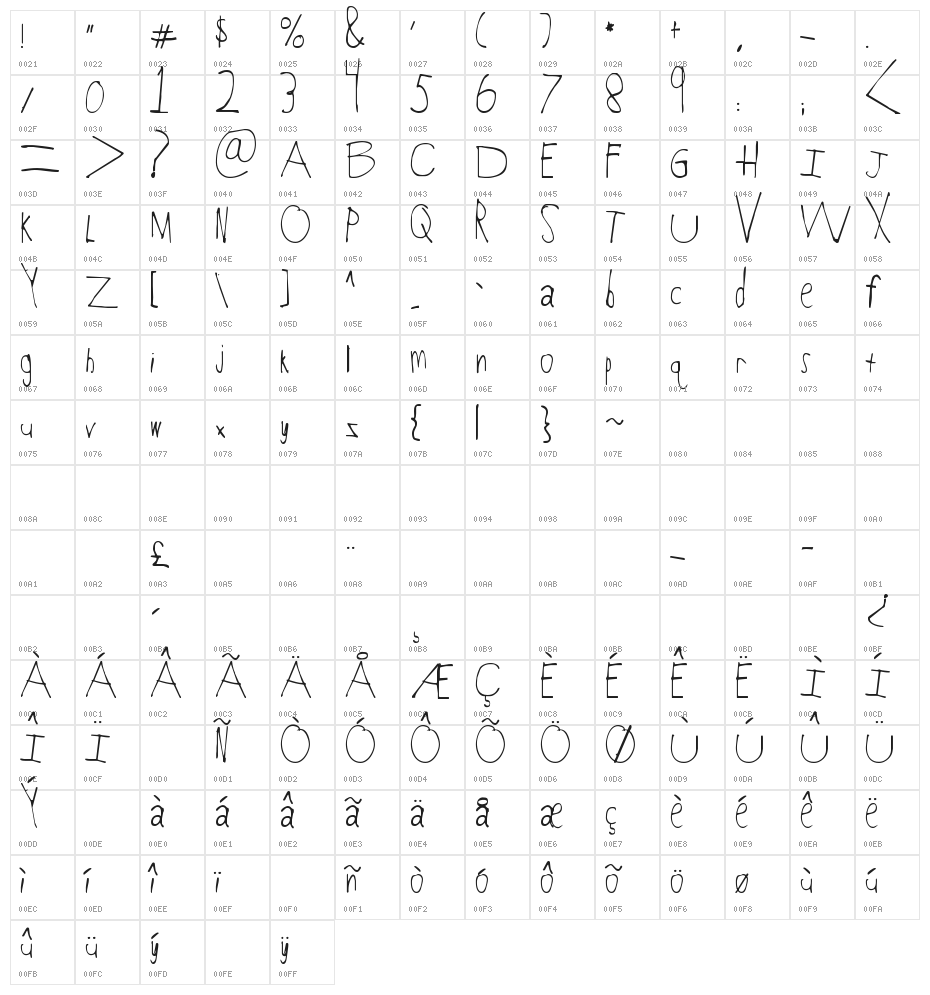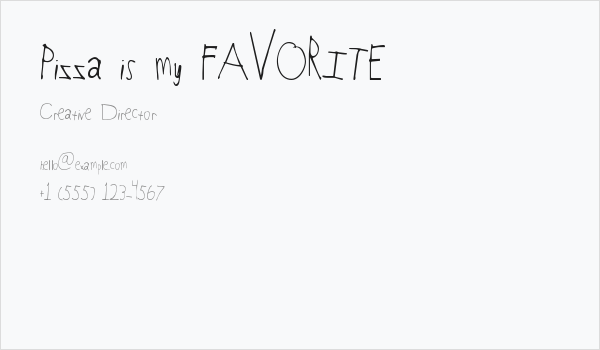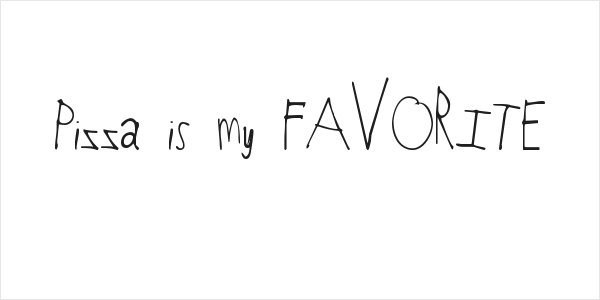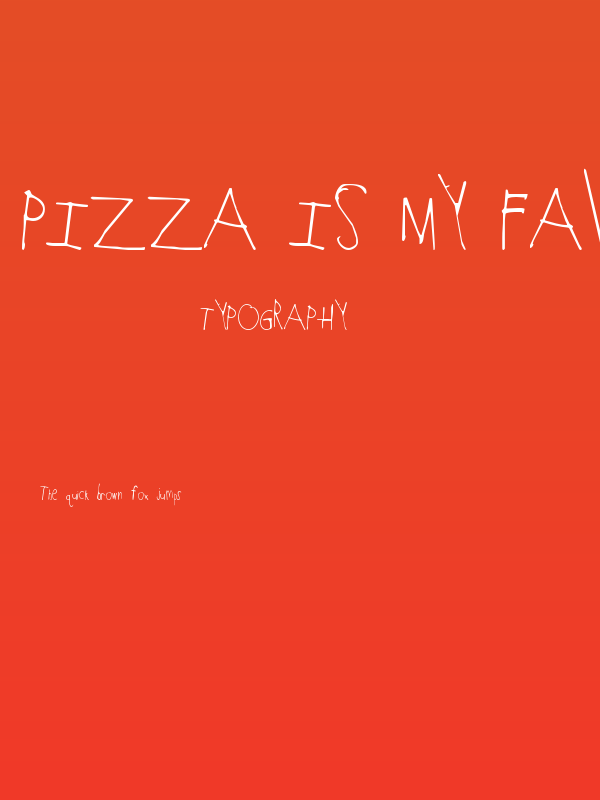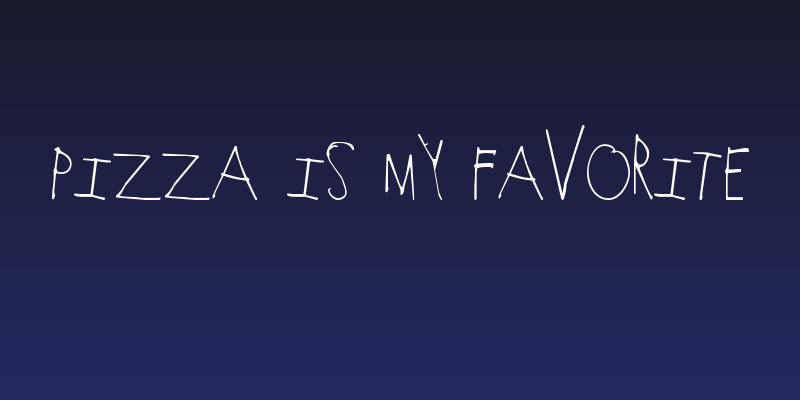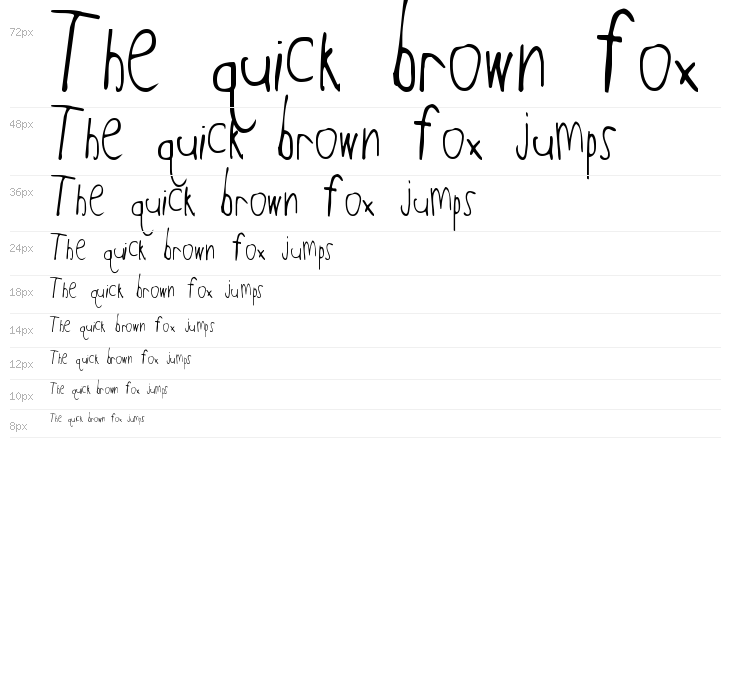
Pizza is my FAVORITE Font
Pizza is my FAVORITE Description
This font exudes a playful and casual handwritten style, characterized by its irregular and slightly whimsical letterforms. The uppercase letters are tall and narrow, with varying stroke thickness that adds a dynamic feel. The lowercase letters maintain a similar playful aesthetic, with some characters featuring unique loops and curves that enhance the font's informal charm. Numbers and special characters follow the same quirky style, making the font versatile for creative projects. The overall appearance is reminiscent of a doodle or a note hastily jotted down, perfect for conveying a sense of spontaneity and fun.